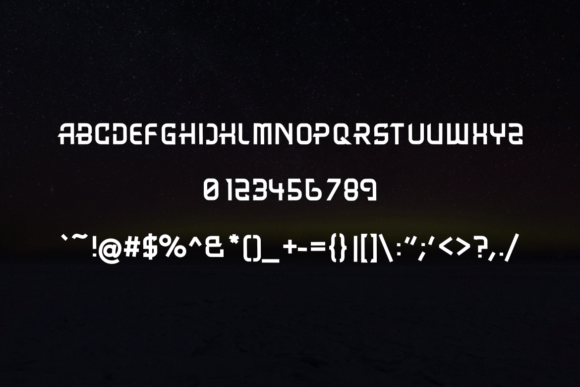
Introduction to Sadez Pro Font Font
Fonts play a crucial role in design, and the Sadez Pro Font font is a typeface that brings both character and versatility to any project. Whether you’re working on a branding project, a website, or a print design, the Sadez Pro Font font offers a unique style that can elevate your work.
Sadez Pro is a cool, futuristic display font.
This modern and bold vibe can easily apply to your favorite designs that require a sci-fi touch .
Key Features of Sadez Pro Font Font
Why Choose Sadez Pro Font Font?
The Sadez Pro Font font is more than just a typeface – it’s a design tool that helps you communicate your message with style and clarity. Its unique character set and versatile design make it suitable for a wide range of applications, from elegant invitations to bold headlines.
With its carefully crafted letterforms and balanced proportions, the Sadez Pro Font font ensures readability and visual appeal across all mediums.
What makes Sadez Pro Font font special?
The Sadez Pro Font font stands out with its unique design, exceptional readability, and versatility across various design applications.